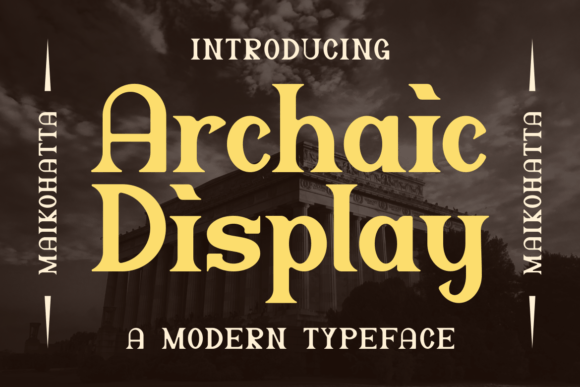
The Perfect Font for Unconventional Creativity
Have you ever stared at a blank canvas, desperately searching for the perfect font to bring your project to life? The struggle is real, but fear not, dear designers! The solution lies in a font so unique, so stylish, and so versatile that it will revolutionize your creative process. Welcome to the world of Archaic Display Font.
This incredible display font is not just a mere addition to your design arsenal; it’s a game-changer. With its distinctive flair and historical charm, Archaic Display Font is the perfect companion for designers looking to add an air of sophistication and elegance to their projects. Whether you’re designing a logo, a poster, or a website, this font will elevate your work to new heights and leave a lasting impression on your audience.
Archaic Display Font Key Features
- Font Family: Archaic Display Font is a unique, high-contrast display font designed for headings and titles.
- Character Count: The font includes a comprehensive set of characters, including uppercase and lowercase letters, numerals, punctuation, and special characters.
- Size and Resolution: Designed to be scalable, Archaic Display Font looks great at various sizes, from 24pt to 96pt, and at resolutions of up to 300 DPI.
- Unique Characteristics: The font features distinctive, ornate details, such as flourishes and swashes, adding a touch of elegance and sophistication to any design.
- Font Weight: Archaic Display Font is available in a single weight, making it easy to use and ensuring consistency across different designs.
Archaic Display Font Review
First off, I have to say that I’m loving the vintage vibe of Archaic Display Font. ✨ The unique letterforms and ornate details are perfect for creating a nostalgic feel in designs. It’s also quite versatile, working well for both digital and print projects.
- ✨ Unique and ornate letterforms
- ✨ Versatile for digital and print projects
- ✨ Great for creating a vintage or nostalgic feel
However, I do have a few concerns about the font’s limitations. ⚠️ The font is quite heavy and might be overwhelming for smaller text sizes. Additionally, the font doesn’t include many language support options, which could be a problem for international projects.
- ⚠️ May be overwhelming for smaller text sizes
- ⚠️ Limited language support options
Overall, I think Archaic Display Font is a solid choice for designers looking to add a vintage touch to their projects. While it may not be suitable for every project, it’s a great option for those who want to create a nostalgic feel.
Use the Archaic Display Font for titles, headings, and other text elements where you want to add a touch of elegance and sophistication. Experiment with different font sizes and styles to achieve the desired effect.
The Archaic Display Font is ideal for:
- Creating a vintage or retro aesthetic.
- Designing posters, flyers, and other promotional materials.
- Adding a touch of luxury and sophistication to your designs.